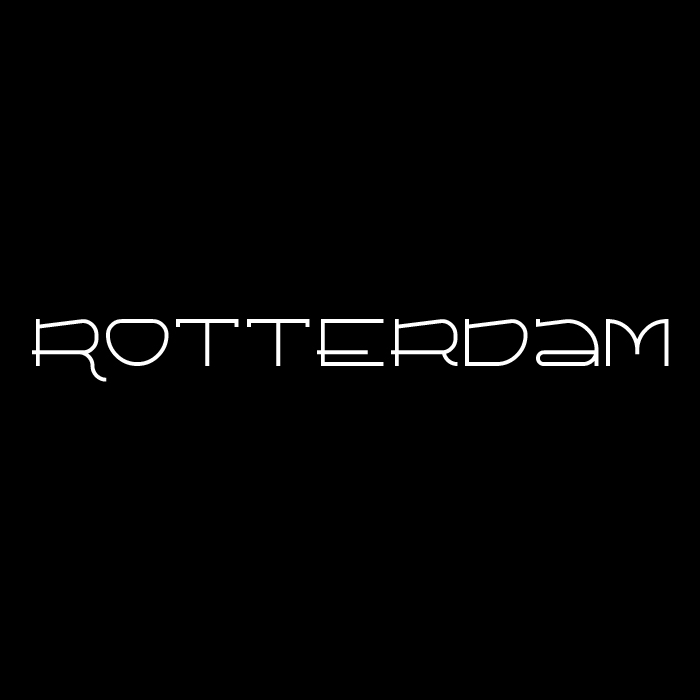
So stylish, so fresh, so graceful, so cool... Bravo one more time, compañero!
This is so clean and neat ! Really like this !
A very clean deco design, unique and visually striking 10/10